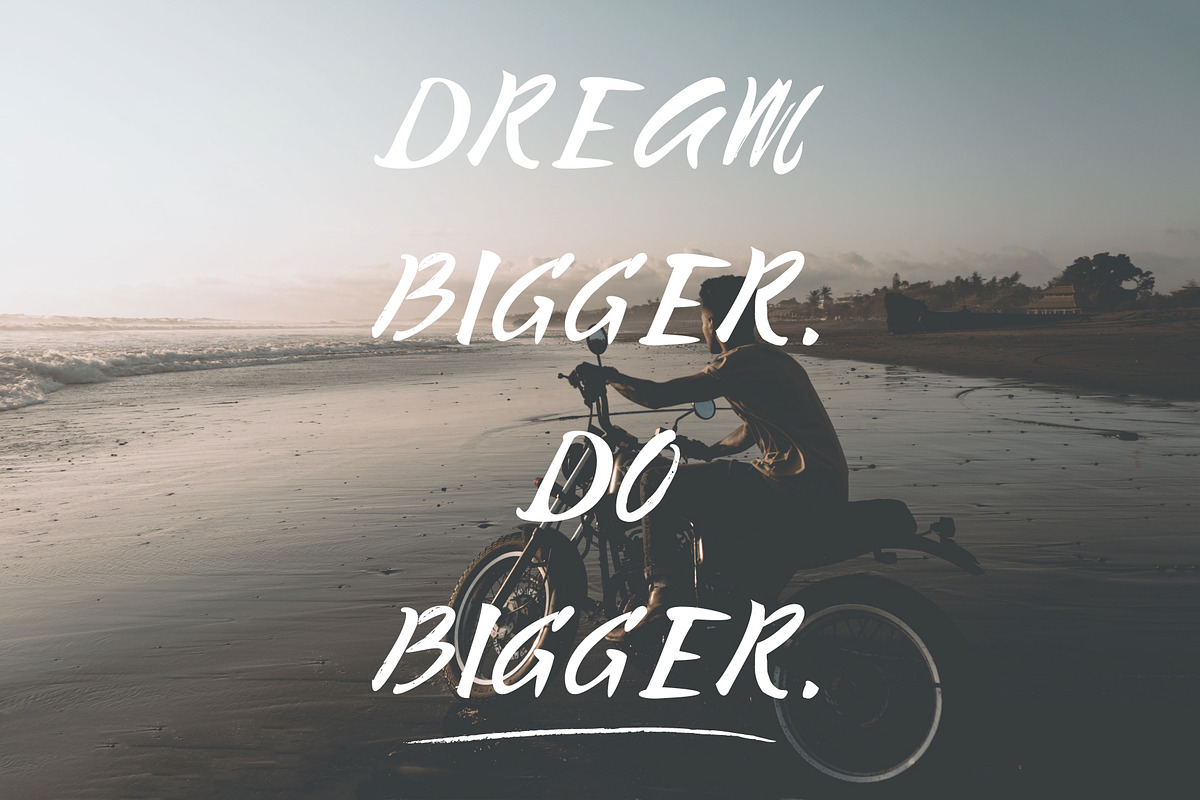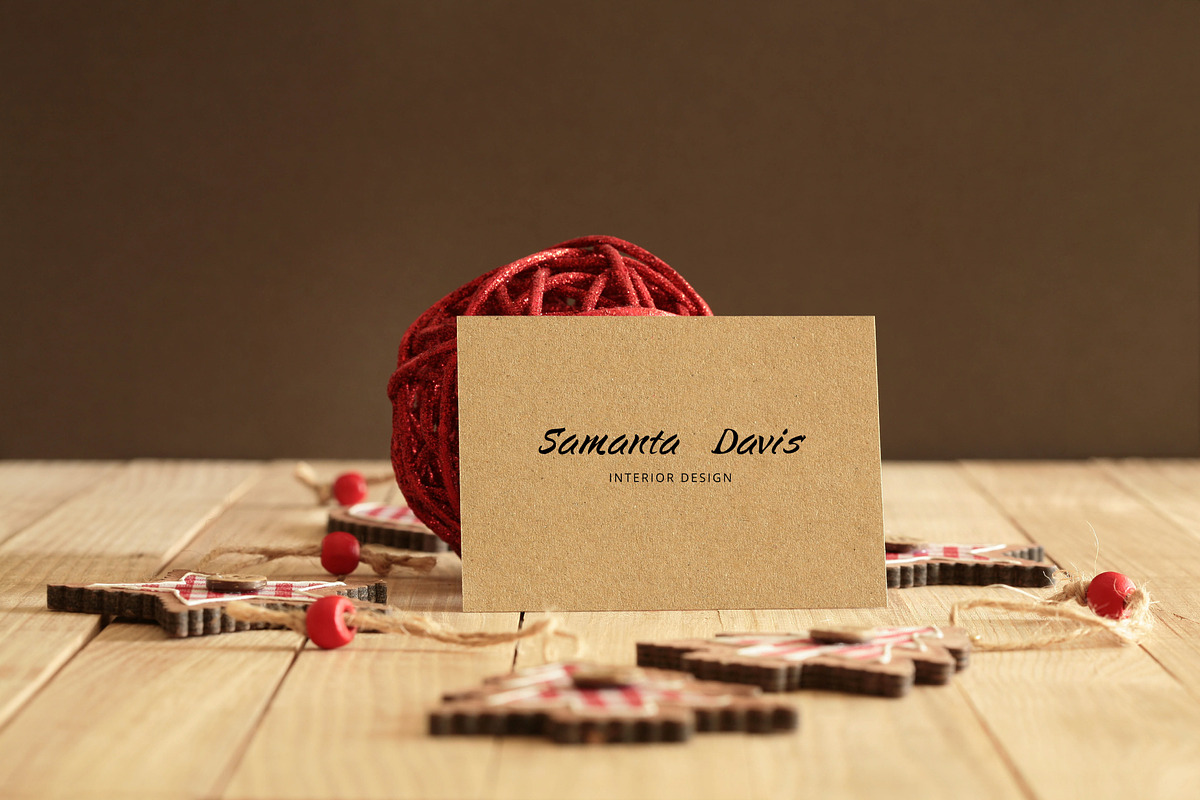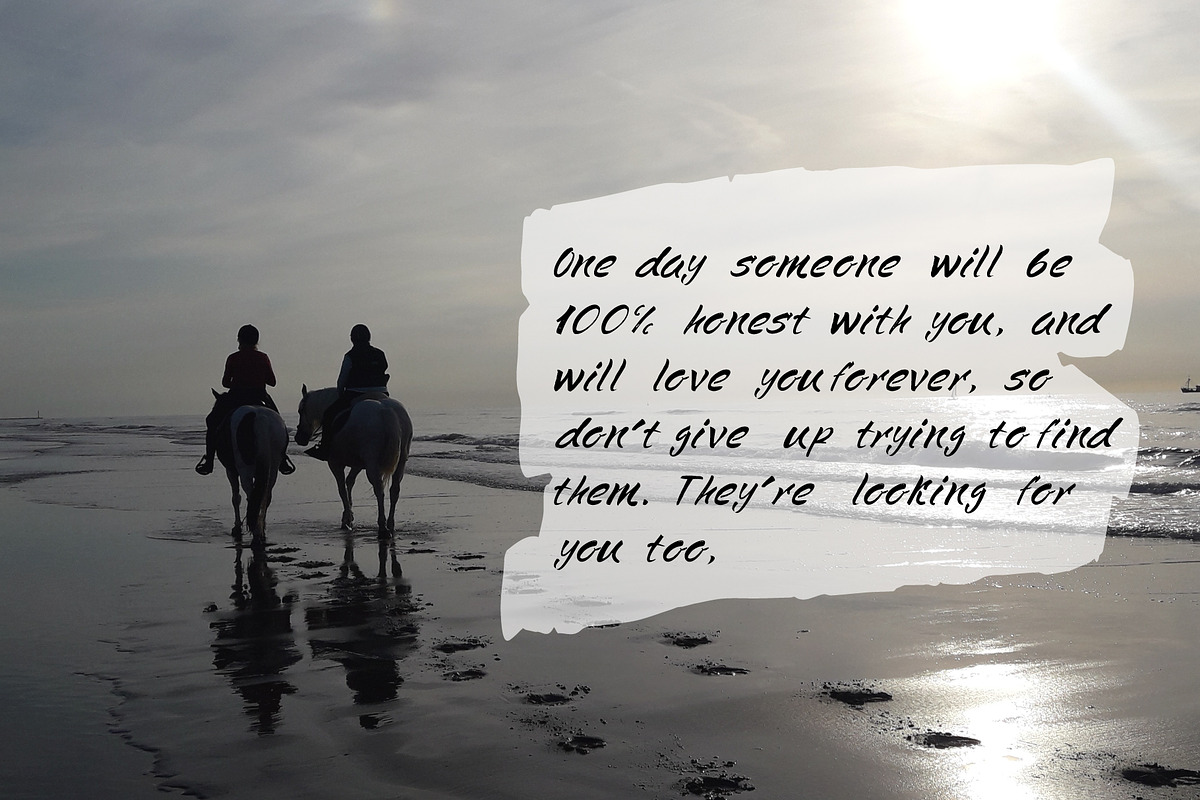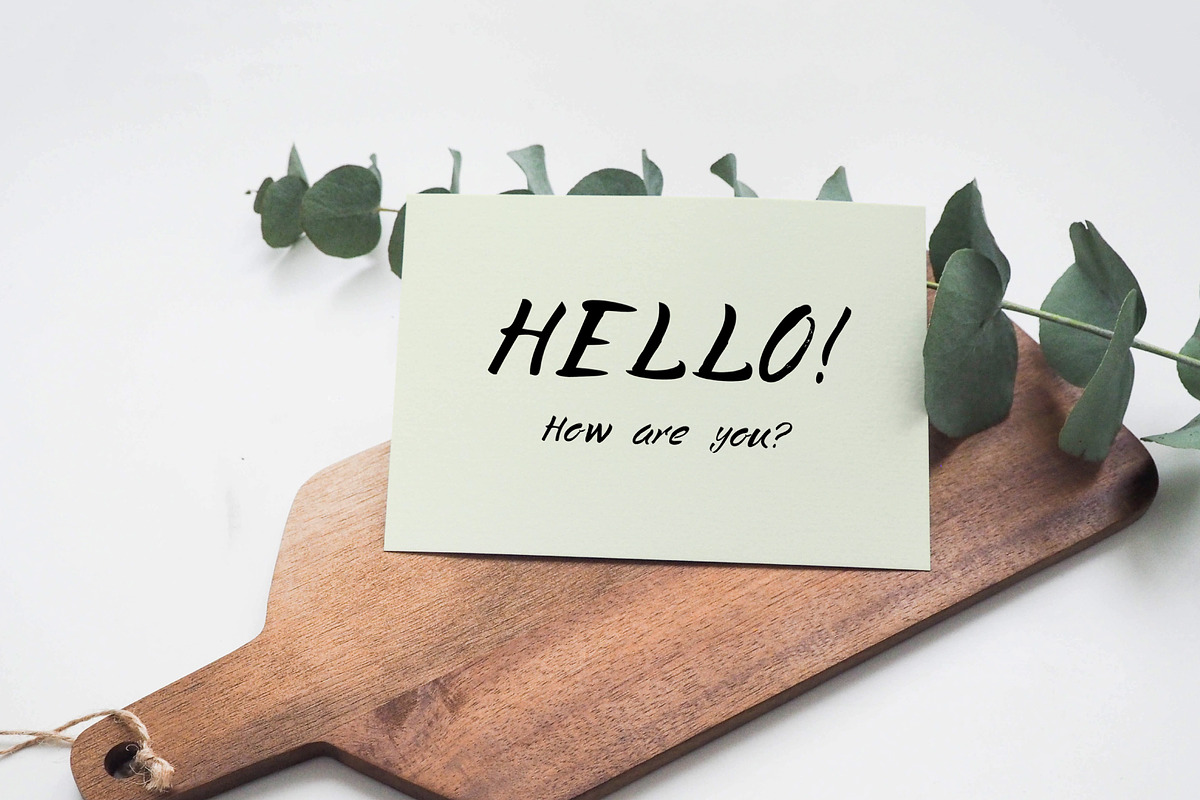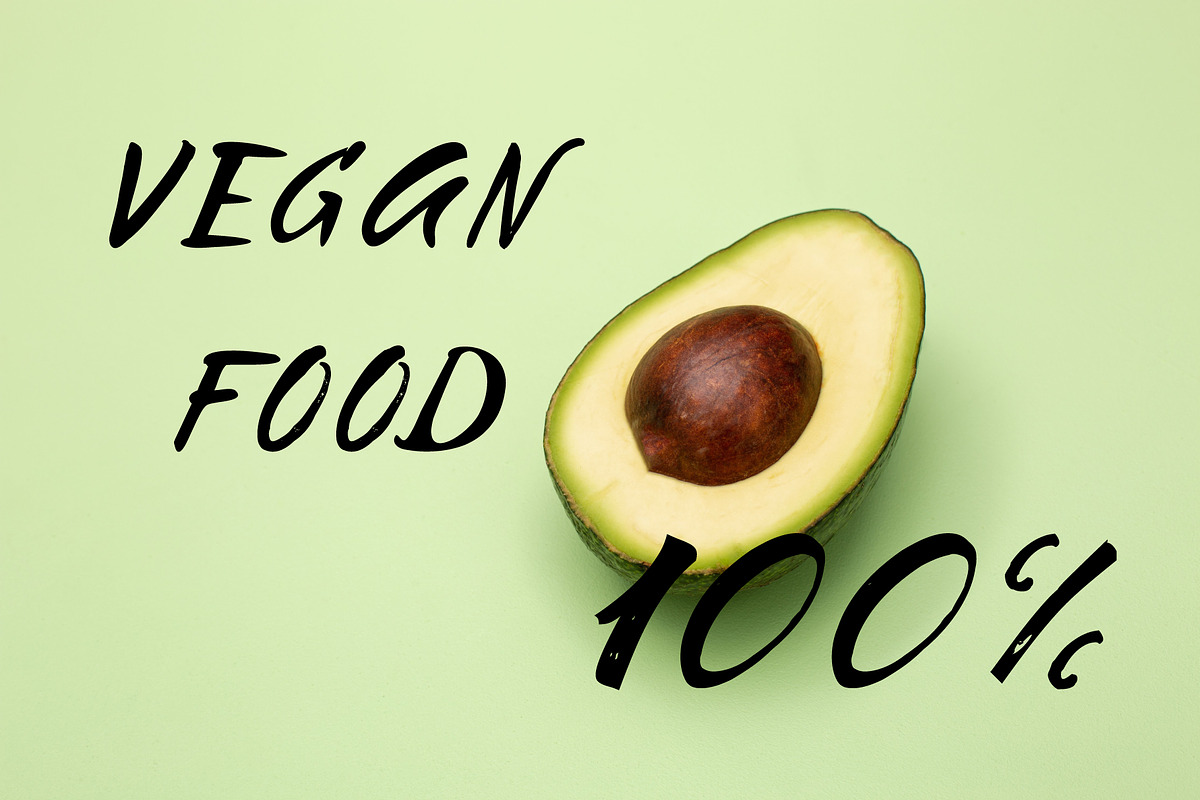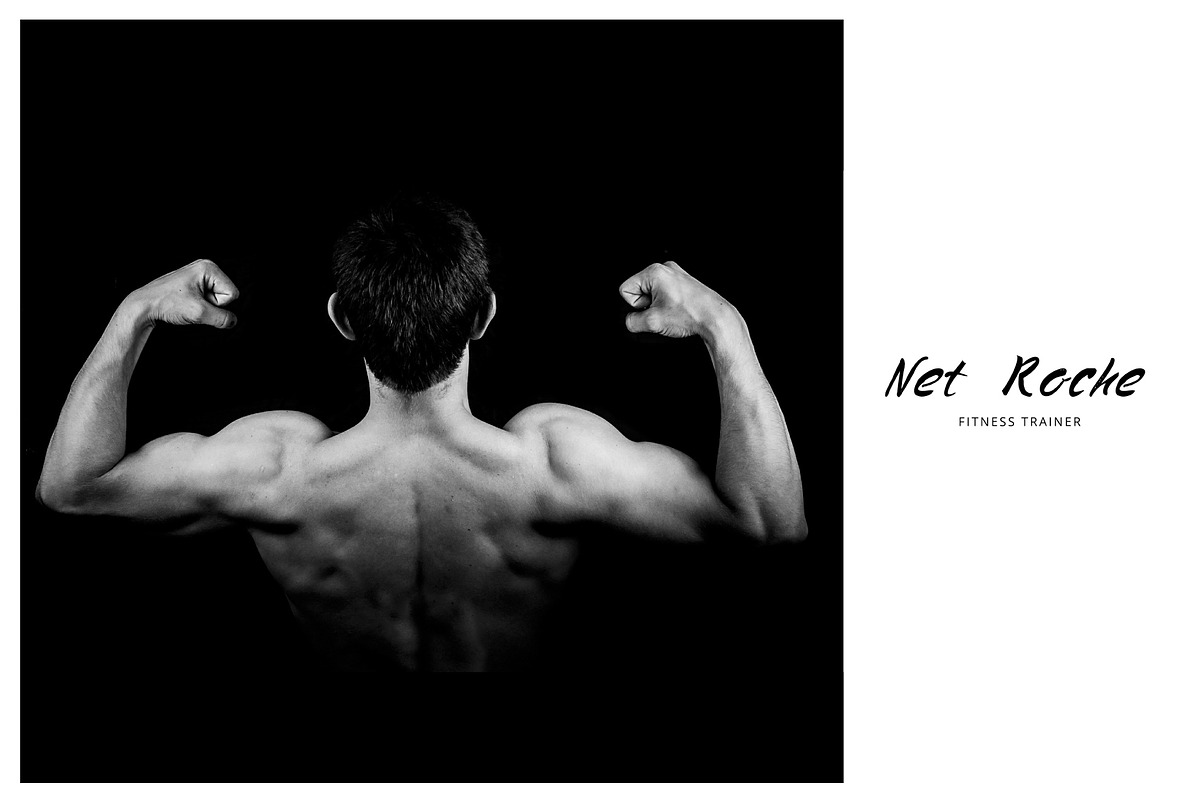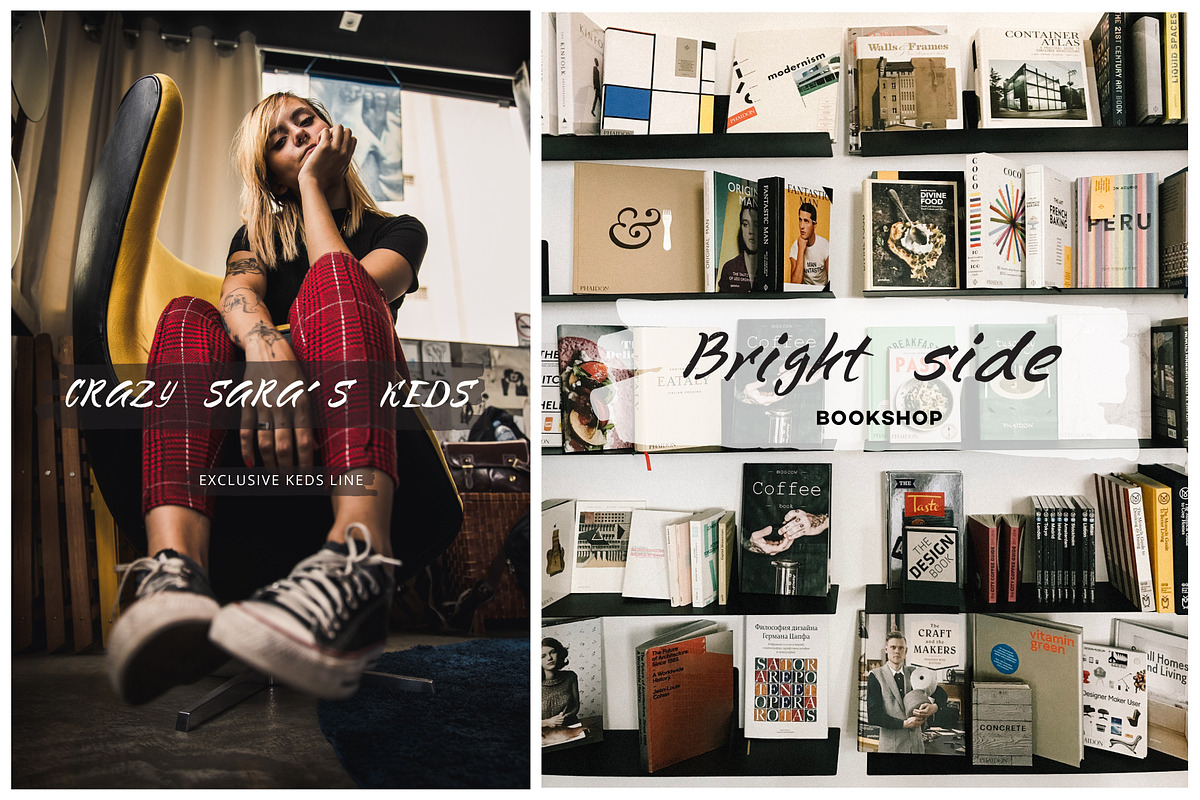
Serafima font
I'm pleased to introduce you the font - Serafima.
Serafima is calligraphy handwritten font with refined hand drawn texture and a personal charm. The best thing about this font is that it is both rustic and energetic. As if you quickly leave a message in your own handwriting. Serafima is perfect for branding projects, home designs or simply as a stylish text overlay to any background image.
Why Serafima font is worth a look
Serafima font by Lana Samokhina fits naturally into Branding, posters, packaging, typography.